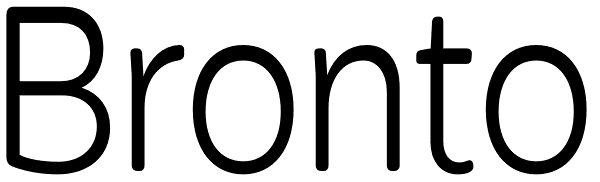
Bronto
Bronto is a typeface that mutated many times: it went from being morphologically conventional, to have soft features, to finally have some inverted contrasts that made it more dynamical; but all this without losing sight of the meaning of a...